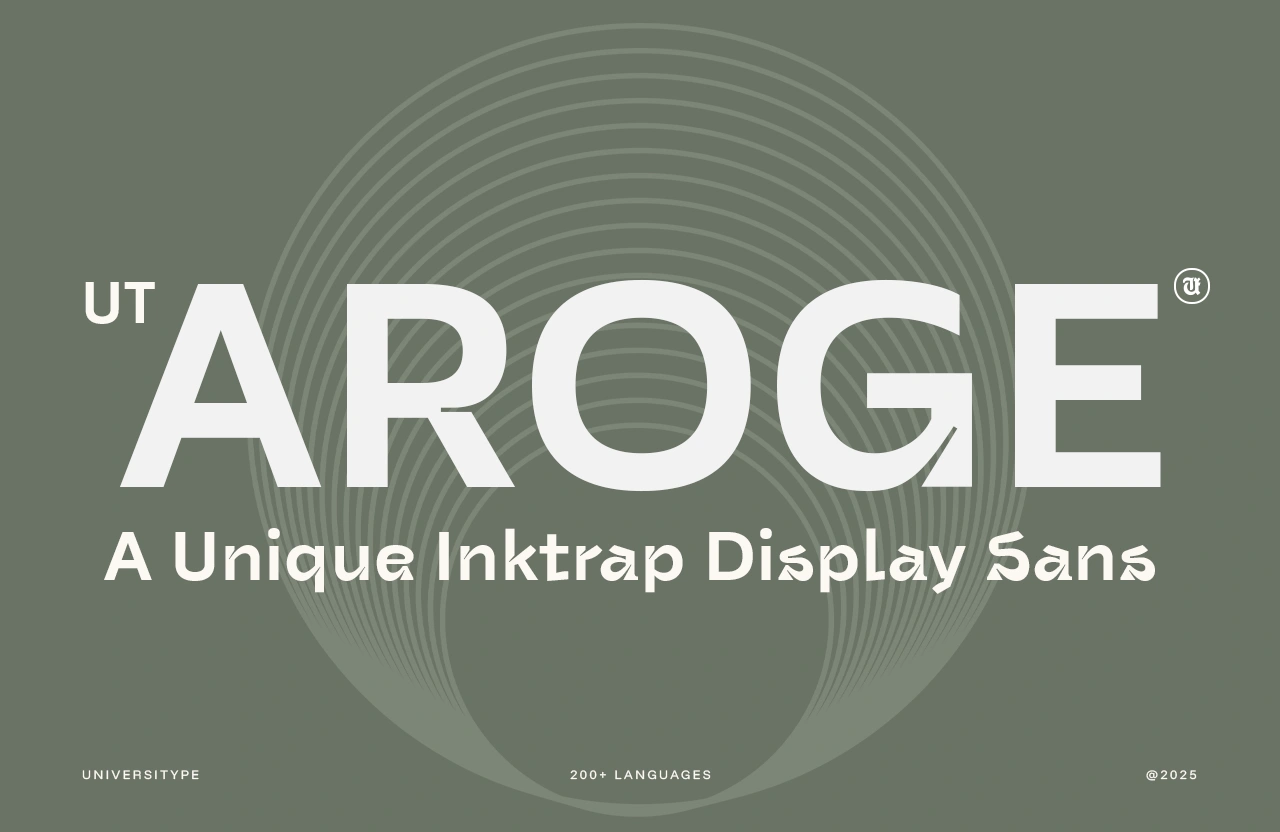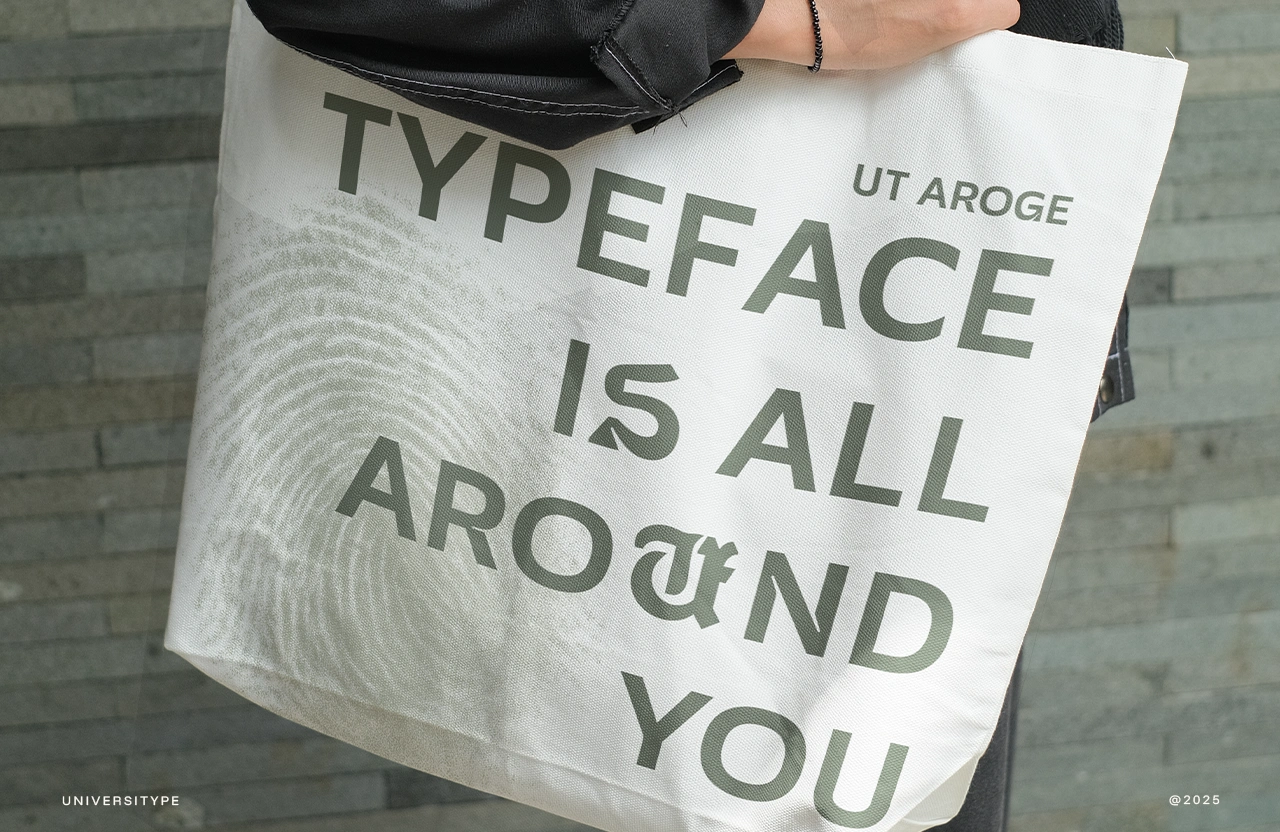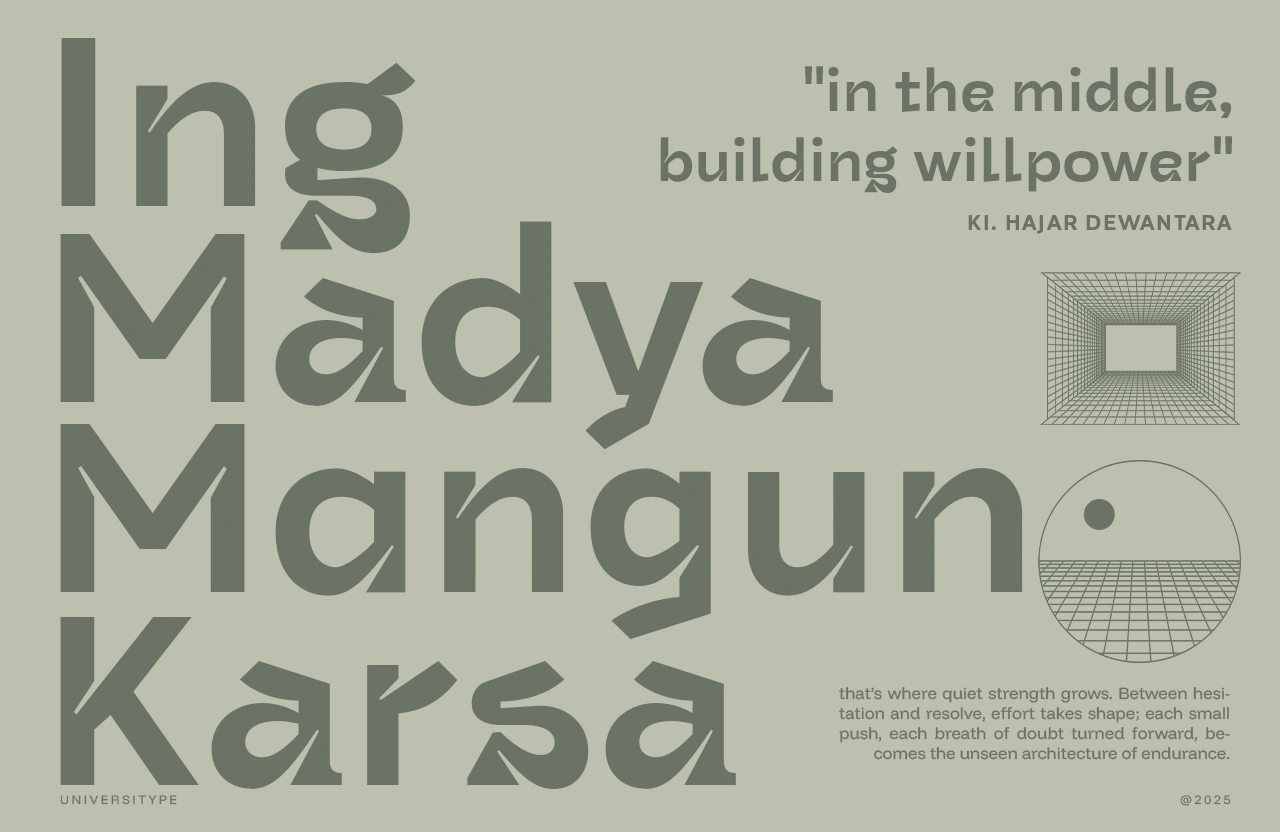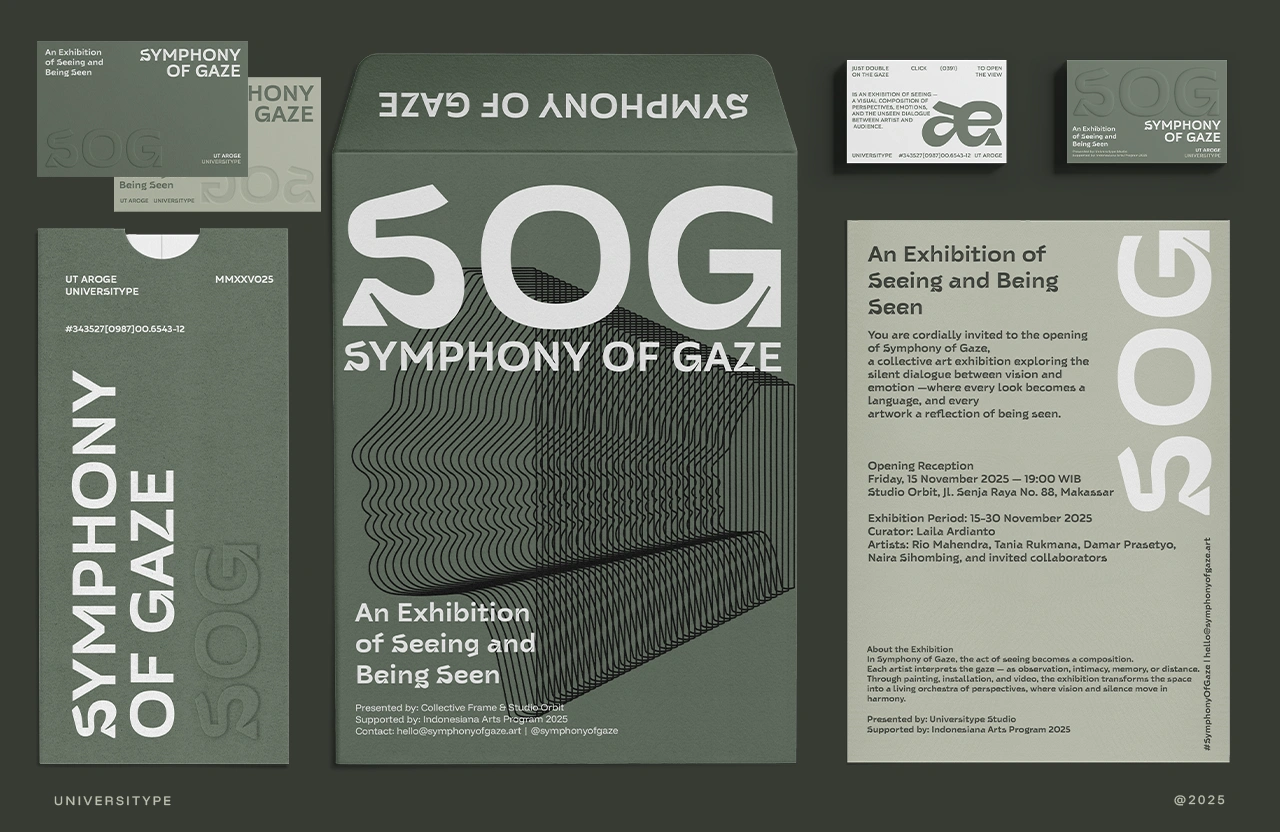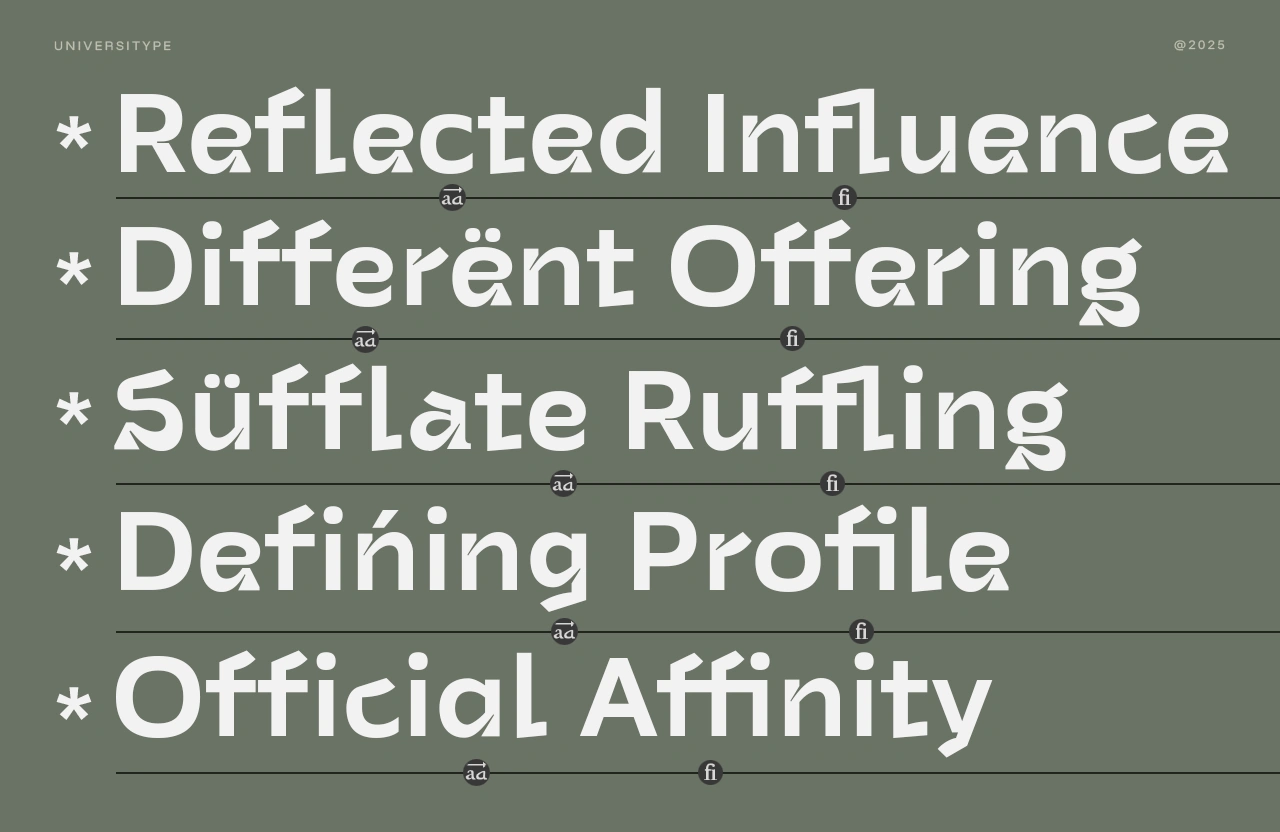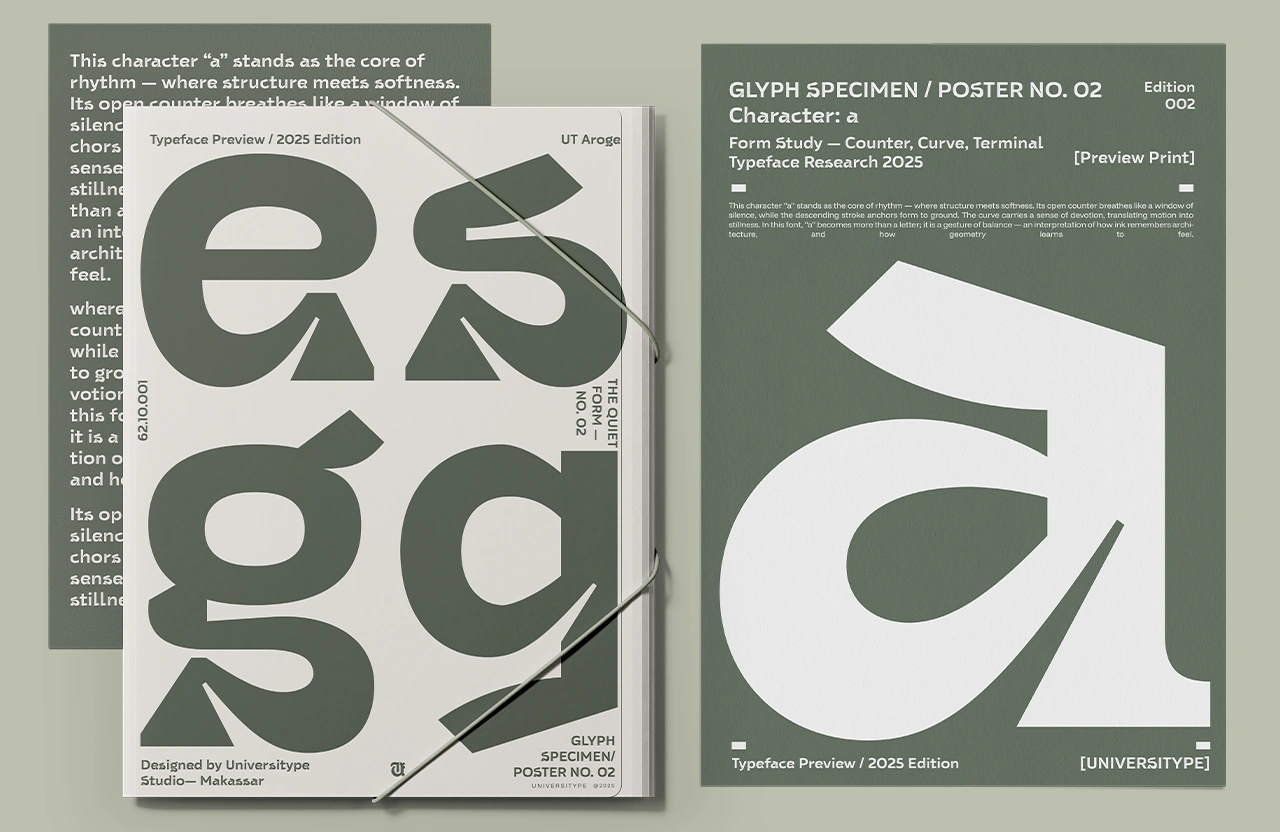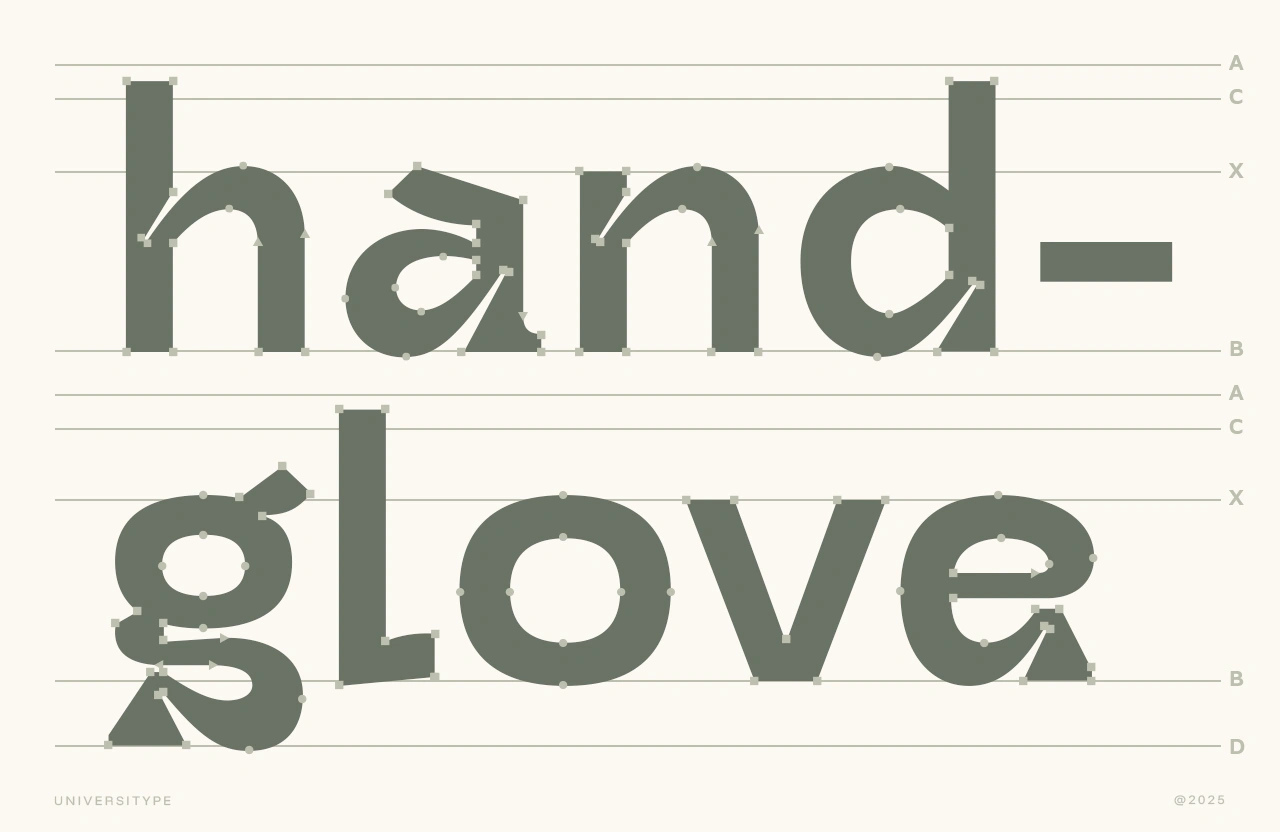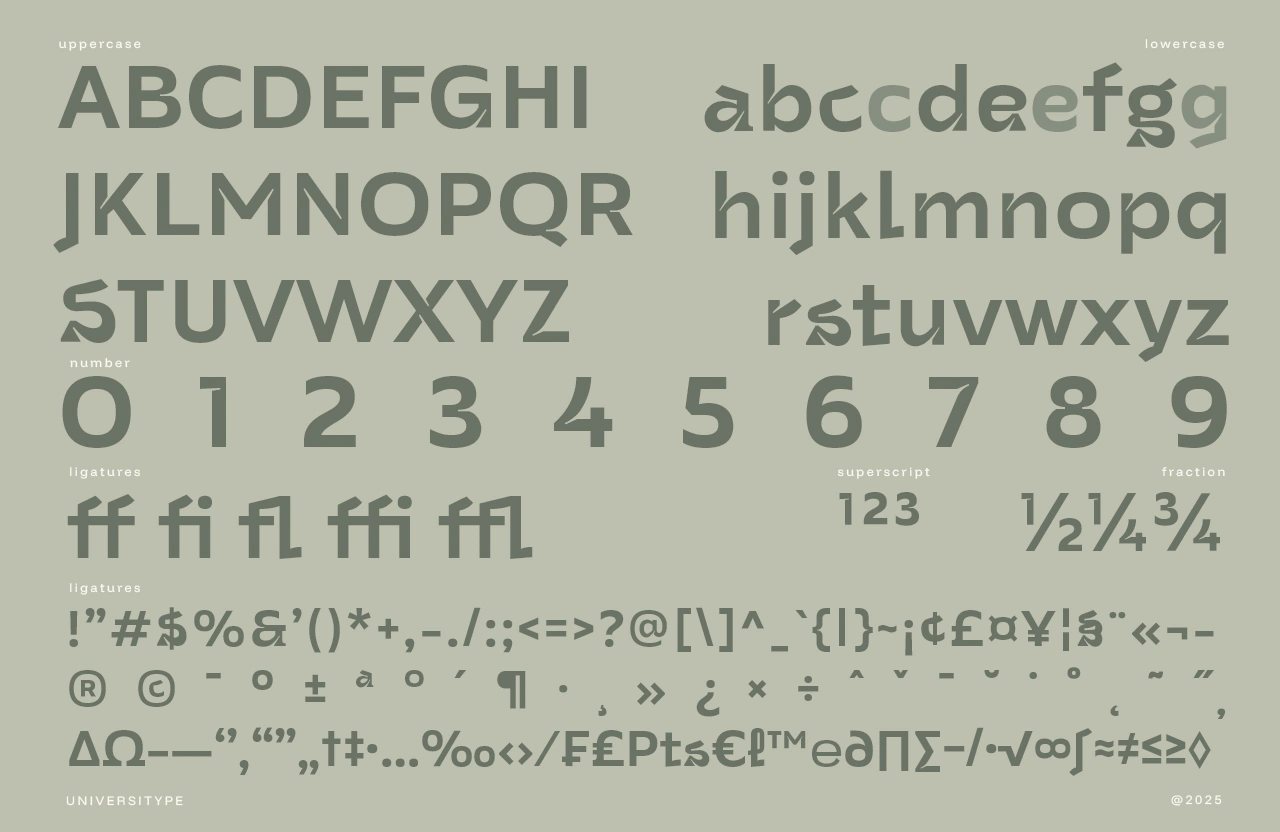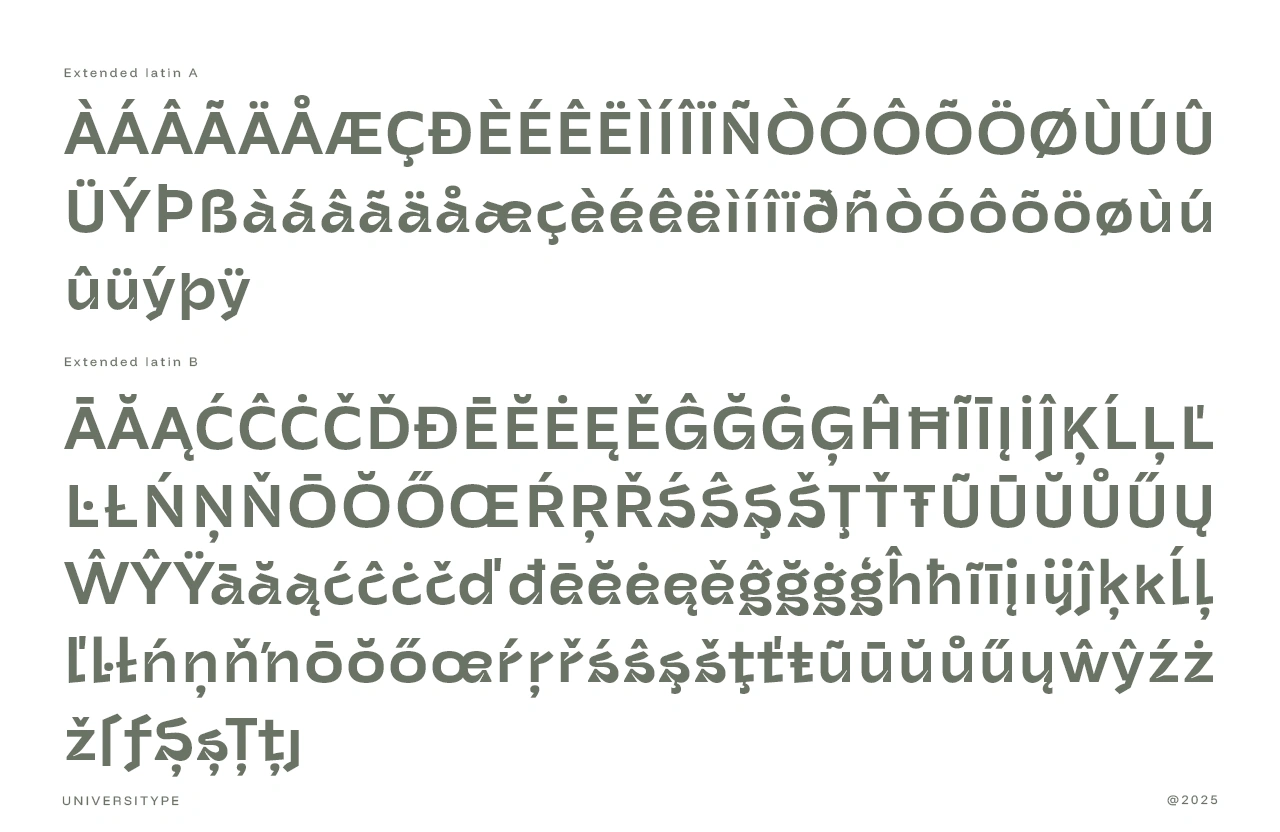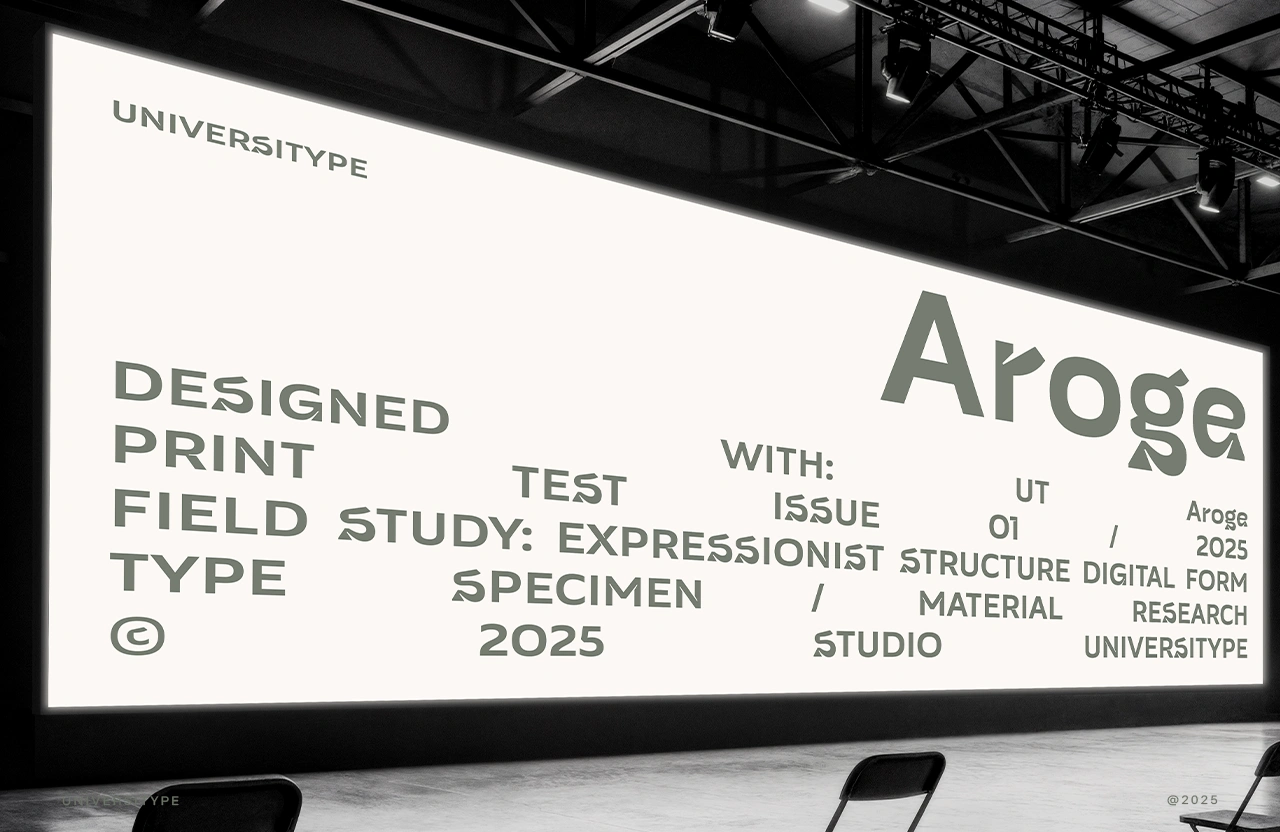
UT Aroge
UT Aroge brings a bold attitude wrapped inside quiet, sculpted curves. Built as an ink-trap display sans with strong personality, the font plays with tension: sharp terminals against soft curves, steady structure with a touch of rhythm.
UT Aroge – An Inktrap Display Sans
UT Aroge brings a bold attitude wrapped inside quiet, sculpted curves. Built as an ink-trap display sans with strong personality, the font plays with tension: sharp terminals against soft curves, steady structure with a touch of rhythm. It feels modern, but carries a handcrafted pulse that gives it warmth. Perfect for anyone who wants something striking without losing a sense of calm balance.
Key Features
• 400+ glyphs
• 30+ stylistic alternates for expressive customization
• Strong ink-trap detailing, giving a architectural yet playful vibe
• Distinctive terminals for standout headlines
• Smooth spacing for readable display compositions
• Support for 200+ languages
• Works beautifully in both large and mid-size display settings
Inspiration Behind the Design
UT Aroge takes cues from the quiet tension found in stillness—steady lines interrupted by sharp turns, like motion frozen at the perfect moment. The ink traps shape the rhythm, almost like small cuts guiding the eye. It also nods to a sense of endurance and balance, where structure meets gentler curves. The design grows from that contrast: movement held inside a calm frame.
Usage Suggestions
• Branding and logo work
• Posters with bold storytelling
• Editorial layouts and magazine titles
• Packaging that needs a confident visual anchor
• Art prints, typographic compositions, and experimental layouts
• UI/UX headings or hero text that demand presence
Features:
• Stylistic alternates
• Standard ligatures
• Ink-trap detailing
• Extended punctuation + symbols
• Full multilingual set